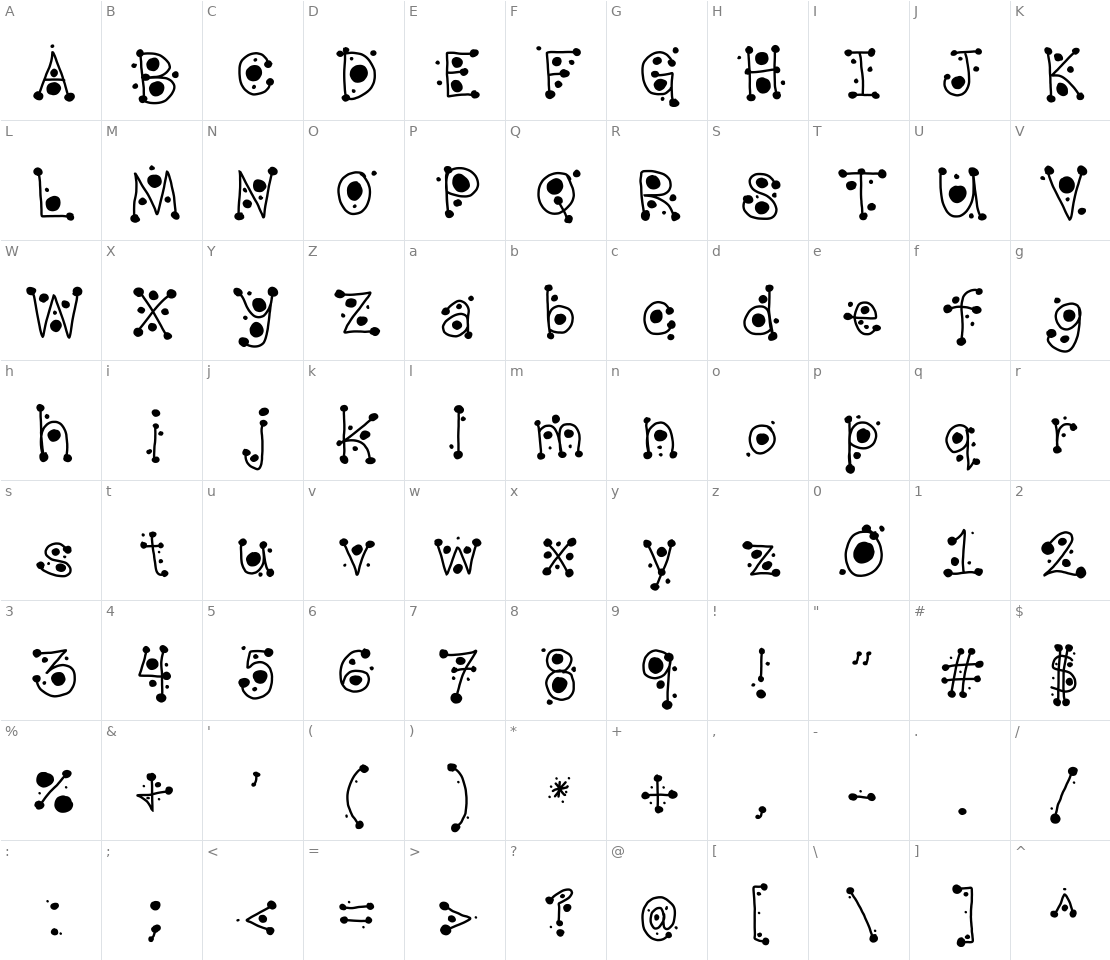
Crop Circles
by Kandida Wallace
Crop Circles is a quirky novelty display face by Kandida Wallace where every letterform is constructed from circles and dots, giving the whole alphabet a bubbly, almost diagrammatic quality. It's playful and whimsical without being hard to read at larger sizes, making it a solid pick for headlines, posters, and packaging that needs to feel lighthearted and a little strange.